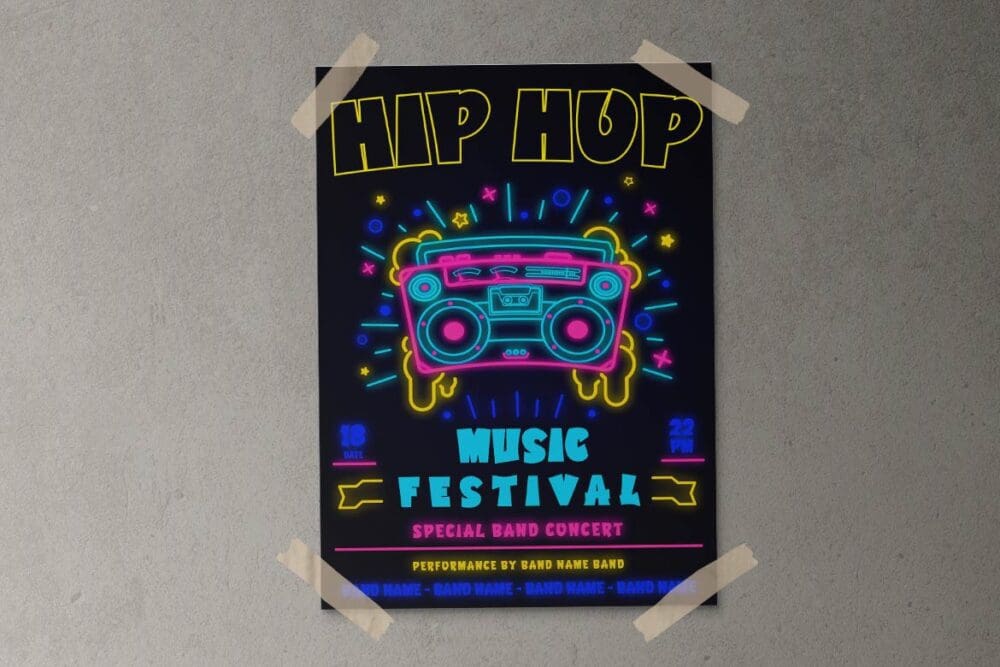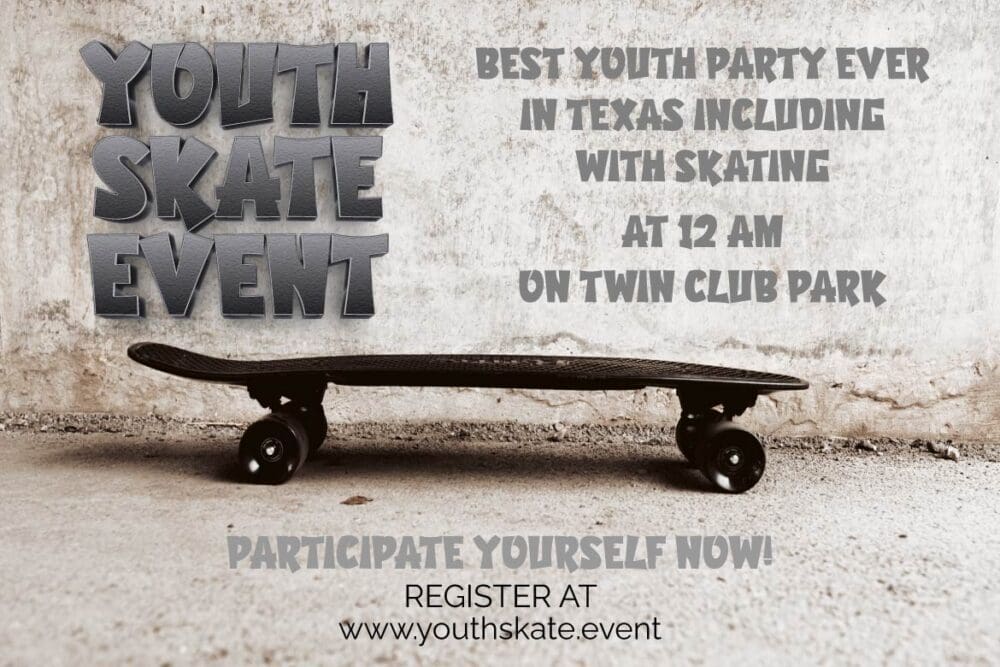
Arogun Font
Arogun is a Display Font with a unique and amusing appearance. It has a lovely and clean shape. This typeface comes in three families to make it easier for you to use in your unique projects. Everyone who sees this typeface will be impressed by its distinctive, attractive, and spectacular appearance if you use it in your various projects, whether it’s an event or not. Your project will be more exquisite, professional, and one-of-a-kind than it has ever been.